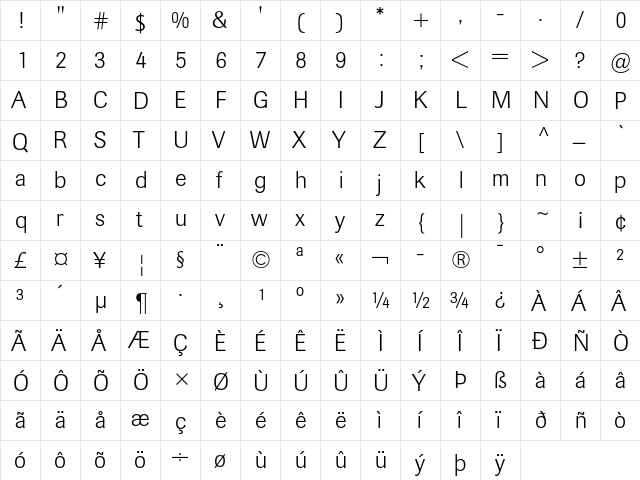
Berthold Imago Light
Design Context for Berthold Imago Typeface
Berthold Imago offers clean, dependable letterforms without strong stylistic allegiance, making it a practical choice for designers who need flexibility. Its slender proportions lend an understated elegance to any composition.
Pro Tip: Pair Berthold Imago with a font of contrasting weight or personality to build a more expressive typographic hierarchy.